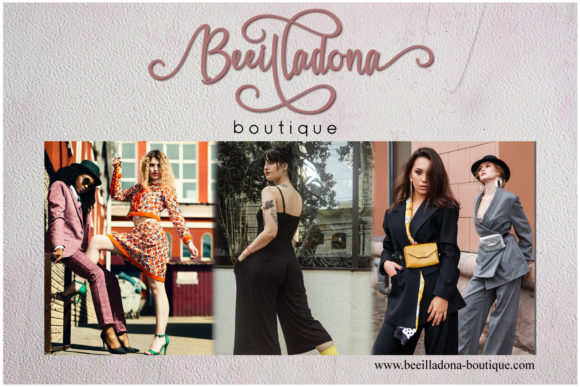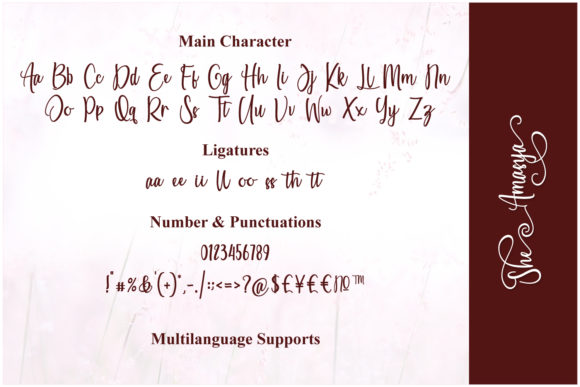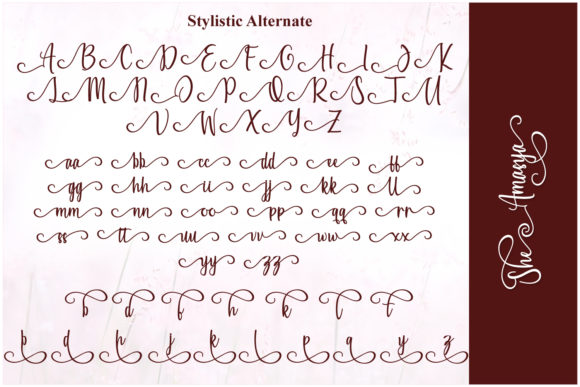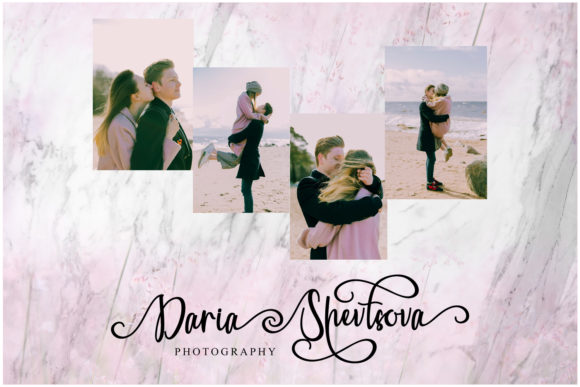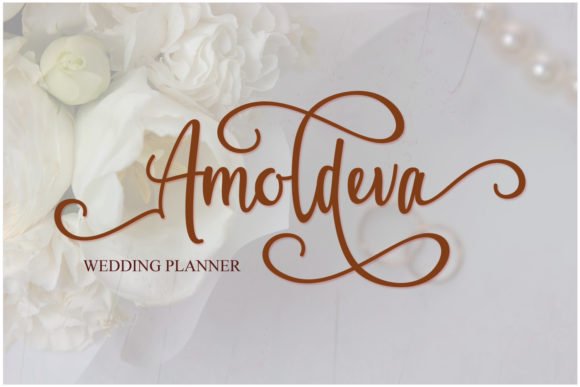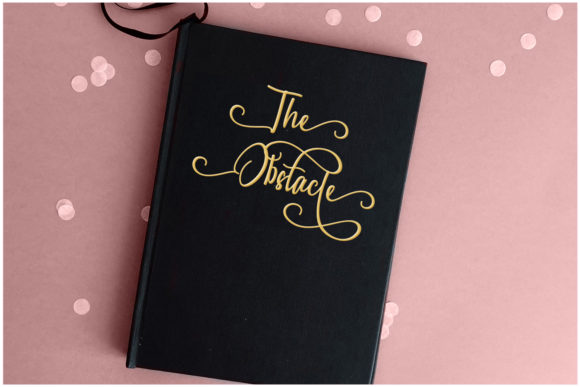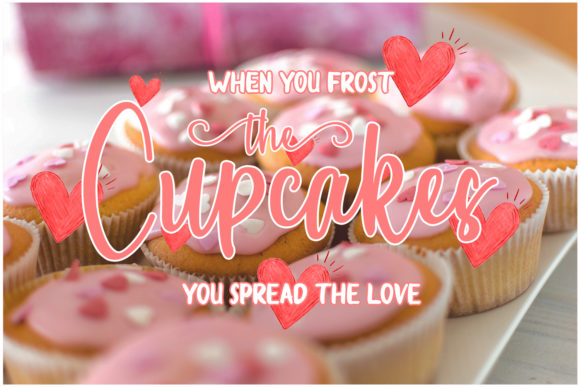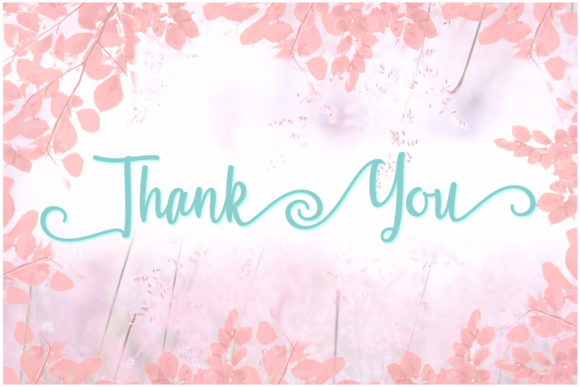
HomeScript FontsShe Amasya Font Script Fonts She Amasya Font FacebookXPinterestWhatsApp She Amasya Font Poster 2 She Amasya Font Poster 3 She Amasya Font Poster 4 She Amasya Font Poster 5 She Amasya Font Poster 6 She Amasya Font Poster 7 She Amasya Font Poster 8 She Amasya Font Poster 9 About She Amasya Font She Amasya is a stunning script font with a bold twist. Use it to add a romantic touch to any creative project! DOWNLOAD ON CREATIVE FABRICAThis font is sold and delivered by Creative Fabrica. Font Canyon may earn a commission if you buy through this link. People also explored Magendfret Font Crunchy Bites Font Dier Dingbats Font Fusto Font Umbrella Font Stunting Font Garbage Font Angel Landing Font Minimalist Note Font 347 0 TagsShe Amasya Font Previous articleGellattik FontNext articleLovely Buttering Font LEAVE A REPLY Cancel reply Comment: Please enter your comment! Name:* Please enter your name here Email:* You have entered an incorrect email address! Please enter your email address here Website: Save my name, email, and website in this browser for the next time I comment. Personal Use Free Lovely Girl Personal Use Free Read more about this font The Pottery Personal Use Free Read more about this font Droid Personal Use Free Read more about this font Starborn Font Personal Use Free Read more about this font BLOG Free vs Paid Fonts: Why Investing in Premium Fonts Is Worth It Free vs Paid Fonts: Why Premium Fonts Are Worth It in 2025 The debate of free vs paid fonts continues in the design world. While... Using Fonts in Digital Marketing: Tips to Strengthen Your Brand Identity Exploring Font Trends Fonts That Capture the Spirit of New York City